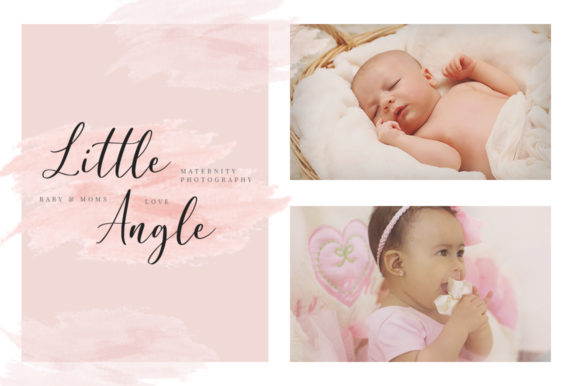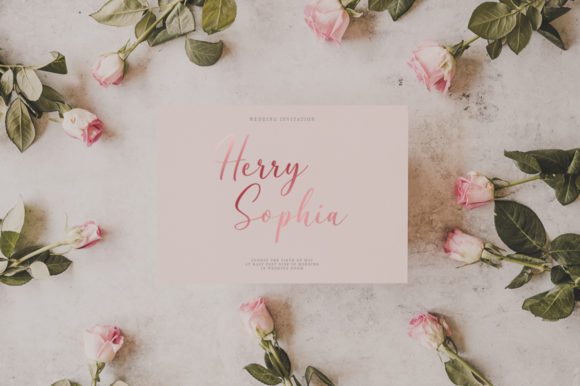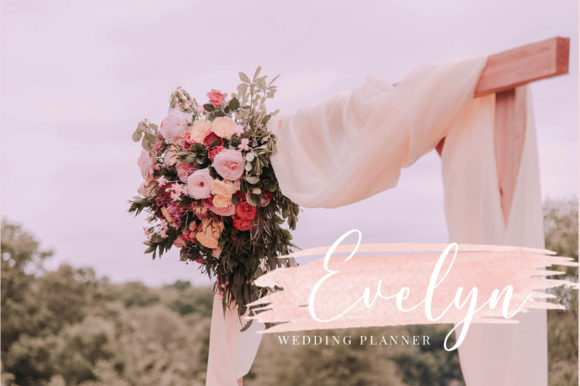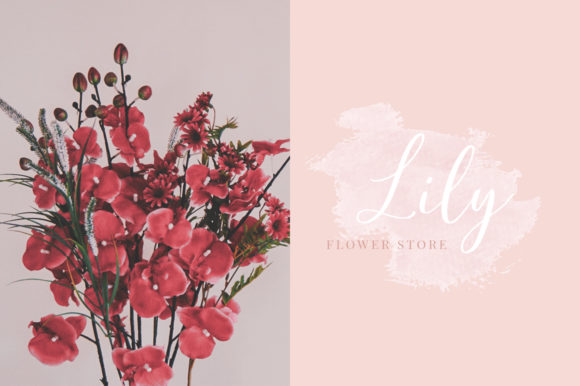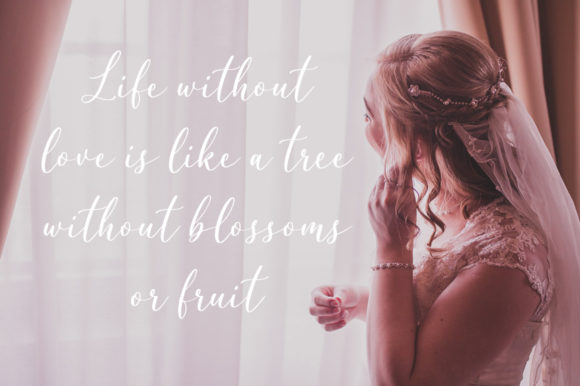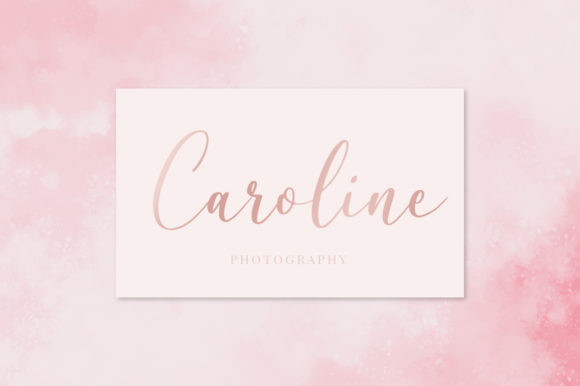
Discover the Elegance of Caroline Font: Elevate Your Designs with this Stunning Script Font
Are you on the hunt for a font that exudes class, sophistication, and modernity? Look no further than Caroline Font, an incredibly beautiful script font that is sure to take your designs to the next level. With its elegant and refined aesthetic, Caroline Font is the perfect choice for designers and crafters looking to add a touch of luxury to their work.
What Makes Caroline Font So Special?
Caroline Font boasts a unique blend of traditional script elements and modern flair, making it an incredibly versatile font that can be used for a wide range of design projects. From logos and branding to invitations, stationery, wedding designs, and social media posts, Caroline Font is the perfect choice for anyone looking to create stunning, high-end designs.
One of the standout features of Caroline Font is its elegant, cursive style, which is both refined and sophisticated. The font’s flowing lines and intricate details make it perfect for designs that require a touch of luxury and glamour. Whether you’re creating a wedding invitation, a logo for a high-end brand, or a social media post for a special occasion, Caroline Font is sure to impress.
Uses for Caroline Font
So, what can you use Caroline Font for? The possibilities are endless! Here are just a few ideas to get you started:
• Logos and Branding: Create a lasting impression with a custom logo that showcases your brand’s personality and style.
• Invitations and Stationery: Add a touch of elegance to your invitations, greeting cards, and stationery with Caroline Font’s beautiful script style.
• Wedding Designs: Make your wedding designs truly unforgettable with Caroline Font’s romantic, whimsical aesthetic.
• Social Media Posts: Elevate your social media posts with Caroline Font’s modern, sophisticated style.
• Packaging and Product Design: Add a touch of luxury to your product packaging with Caroline Font’s elegant, refined aesthetic.
Why Choose Caroline Font?
So, why should you choose Caroline Font for your next design project? Here are just a few reasons:
• Unique and Versatile: Caroline Font is a one-of-a-kind font that can be used for a wide range of design projects.
• Elegant and Refined: Caroline Font’s elegant, cursive style is perfect for designs that require a touch of luxury and sophistication.
• Easy to Read: Despite its intricate details, Caroline Font is incredibly easy to read, making it perfect for designs that require a clear, concise message.
• High-Quality: Caroline Font is a high-quality font that is designed to deliver exceptional results, even at small sizes.
Tips for Using Caroline Font
To get the most out of Caroline Font, here are a few tips to keep in mind:
• Use it Sparingly: Caroline Font is a statement font, so use it sparingly to make a lasting impression.
• Pair it with Other Fonts: Caroline Font pairs beautifully with other fonts, so don’t be afraid to experiment with different combinations.
• Experiment with Colors: Caroline Font looks stunning in a range of colors, so don’t be afraid to experiment and find the perfect hue for your design.
In conclusion, Caroline Font is an incredibly beautiful script font that is sure to elevate your designs to the next level. With its elegant, refined aesthetic and versatile style, Caroline Font is the perfect choice for designers and crafters looking to add a touch of luxury to their work. So why wait? Download Caroline Font today and start creating stunning designs that will leave a lasting impression!